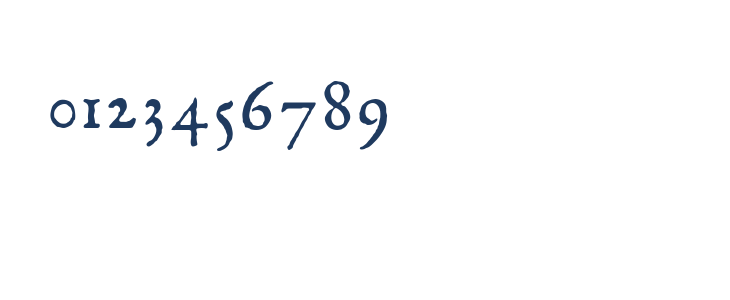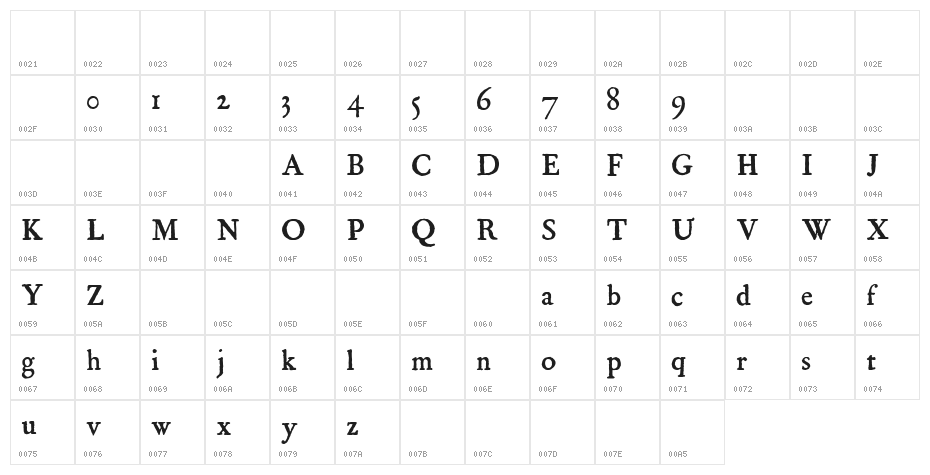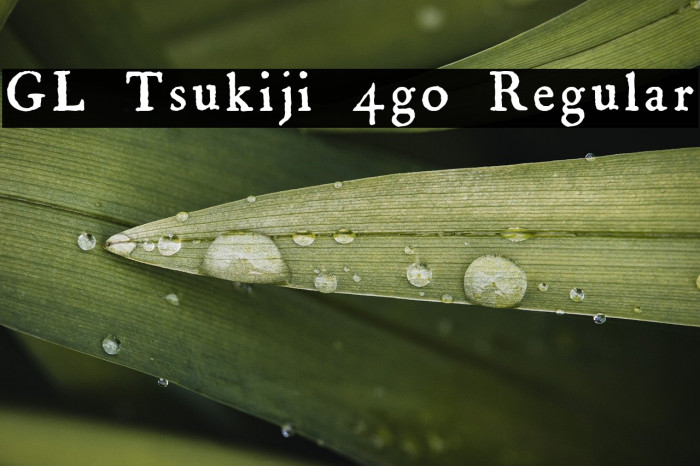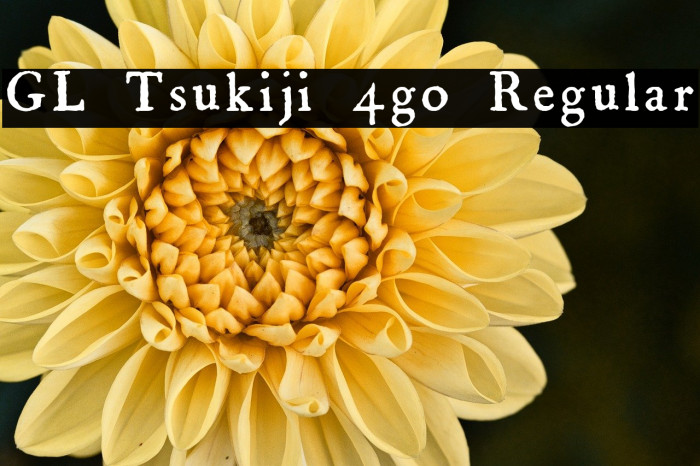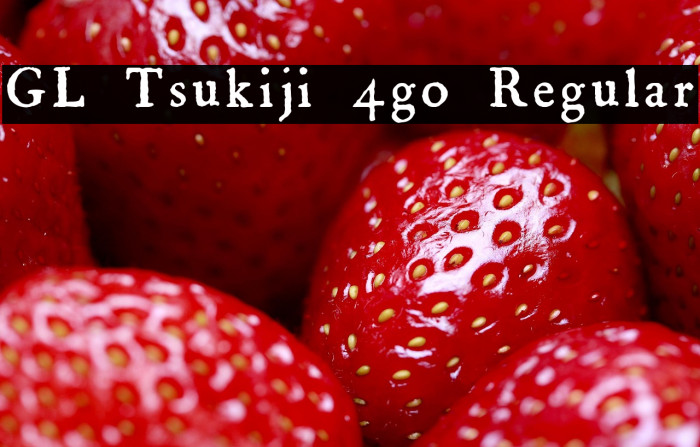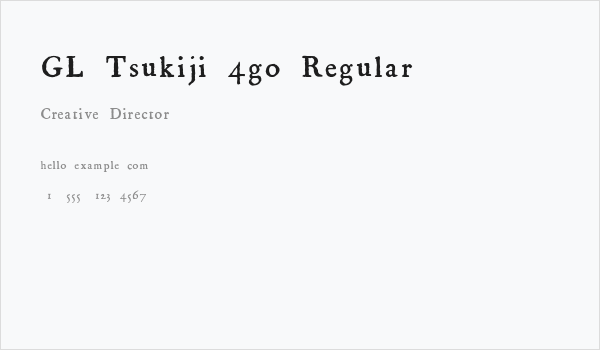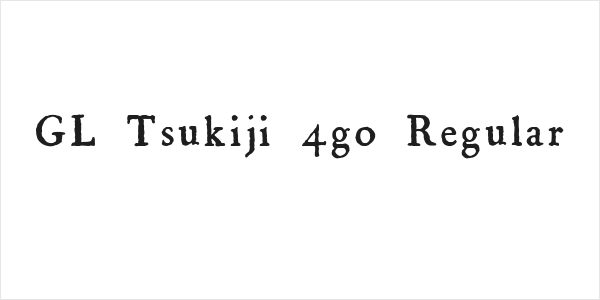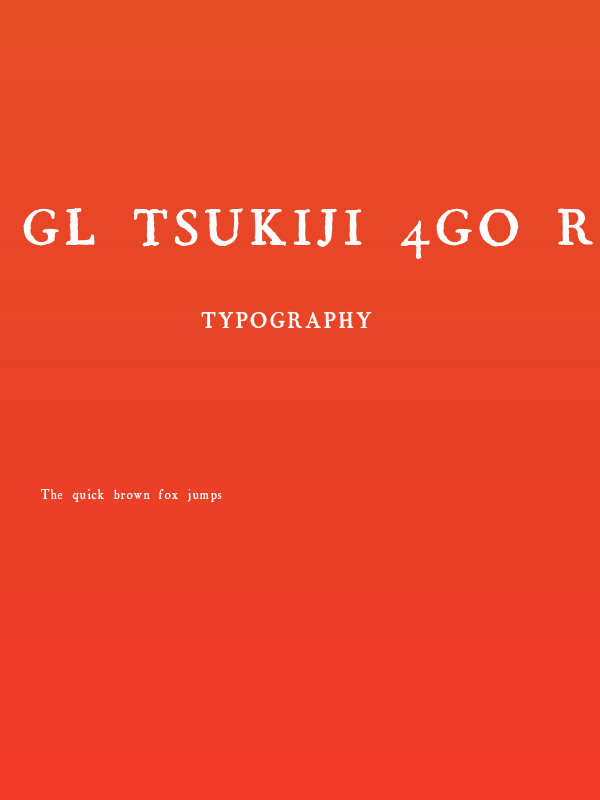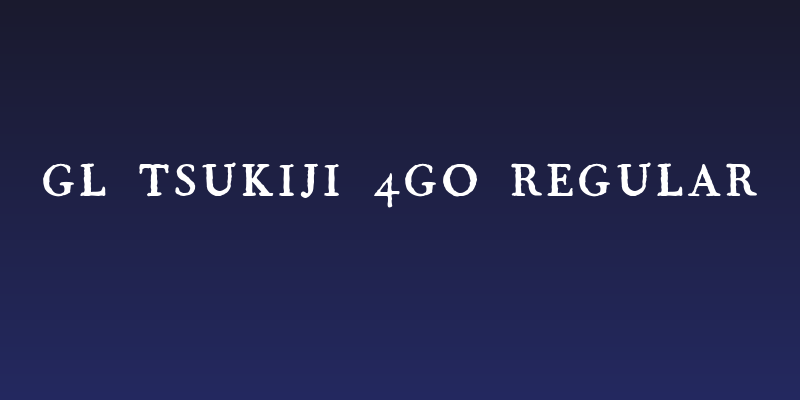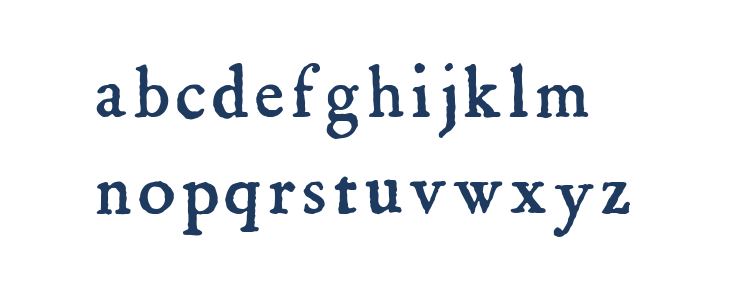
GL-Tsukiji-4go Regular Font
GL-Tsukiji-4go Regular Description
This font features a distinctive, hand-crafted appearance with a slightly irregular baseline, giving it a unique and organic feel. The characters have a bold presence with moderate contrast in stroke thickness, which adds to the overall vintage aesthetic. The serifs are pronounced yet not overly sharp, contributing to its classic charm. The numerals are particularly stylized, with curved and angled lines that enhance the font's artistic flair. This typeface is well-suited for projects that require a touch of historical or artisanal elegance.
| Use Case | Logos, Headlines, Branding |
| Proposed Projects | Ideal for branding, packaging, invitations, and editorial design where a vintage or artisanal touch is desired. |